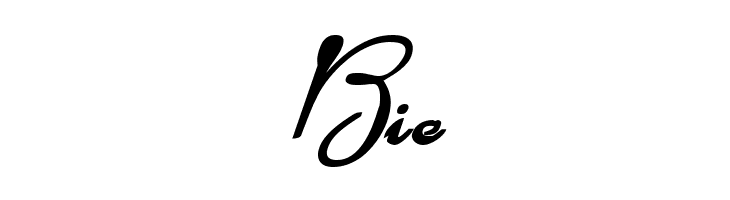
An ornate script font with elaborate swashes and decorative elements.
An elegant script font with flowing, cursive letters and intricate swashes.
An elegant script font with intricate swashes and flowing lines.
A whimsical and elegant font with decorative swashes and curls.
A bold, expanded, and italic script font with elegant curves and swashes.